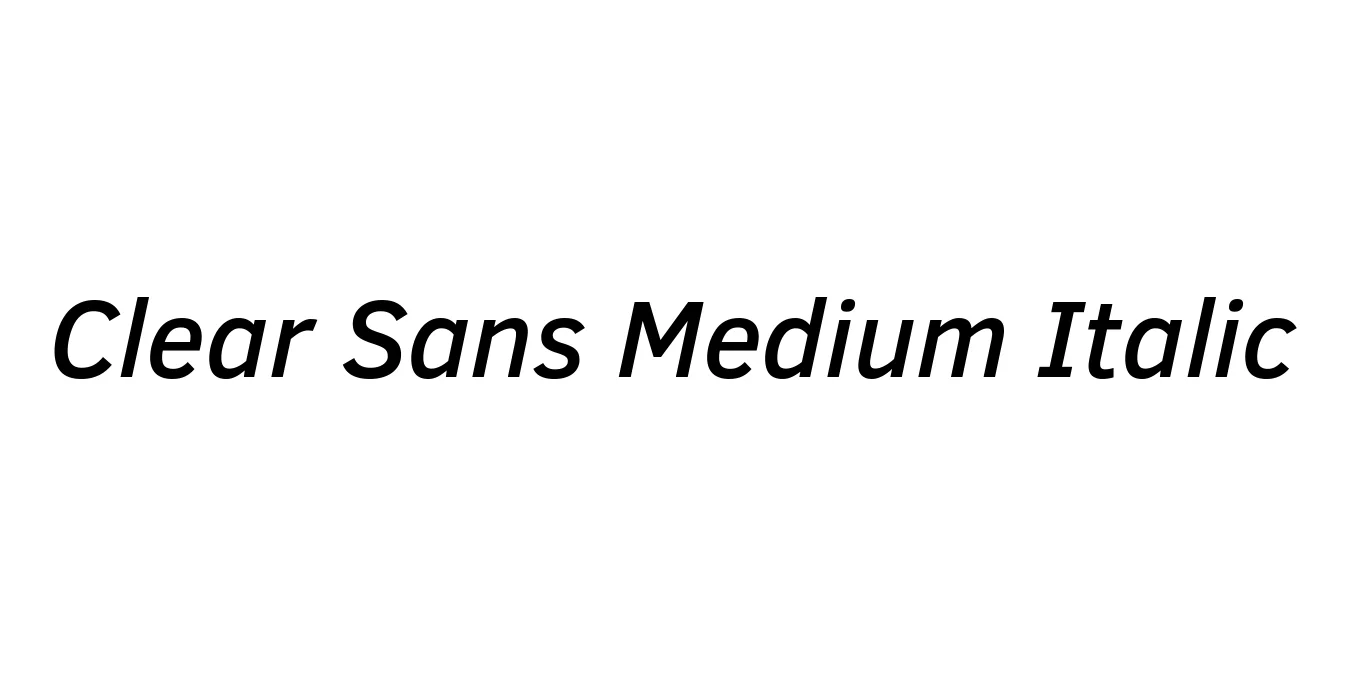
Clear Sans Medium Italic
Designed by Intel Corporation (Daniel Ratighan)
Clear Sans Medium Italic is a versatile contemporary geometric sans-serif typeface designed by Daniel Ratighan at Monotype under the direction of Intel. It was specifically engineered to provide maximum legibility across a wide range of digital screens and physical media. The font features open proportions, distinct letterforms, and a generous x-height, making it highly readable even at small sizes or on low-resolution displays.
The Medium Italic weight offers a sophisticated slant that maintains the structural integrity and clarity of the regular weight while providing the necessary emphasis for editorial and interface design. Released under the Apache License 2.0, Clear Sans has become a staple for developers and designers who require a high-quality, open-source font that balances technical precision with a friendly, modern aesthetic.
Clear Sans Medium Italic Best Uses
Highly optimized for readability in dashboards and application menus.
Perfect for small text and navigation elements on smartphones.
Ideal for body copy and emphasized text sections in clean web layouts.
Clear character distinction makes it excellent for instructional manuals.